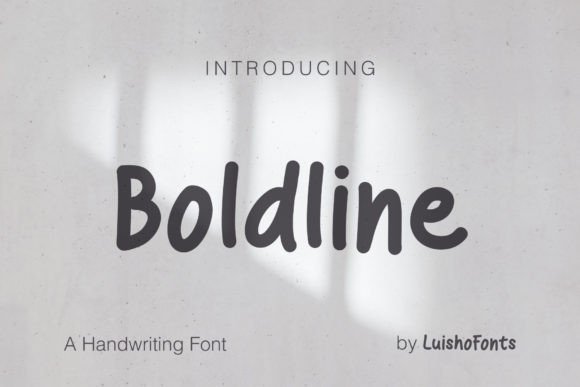
Unleash Your Creativity with Boldline Font
Have you ever sat at your desk, staring blankly at a blank canvas, searching for that perfect font to bring your creative vision to life? We’ve all been there. But what if I told you there’s a font that’s specifically designed to help you express yourself with boldness and elegance? Say hello to the Boldline Font, a modern script font that’s perfect for all your crafting needs.
This versatile font is ideal for logos, posters, banners, and so much more. With its bold strokes and clean lines, the Boldline Font is a valuable tool for designers looking to add a touch of sophistication to their designs. Whether you’re a seasoned pro or just starting out, the Boldline Font is sure to help you create something truly special.
Boldline Font Key Features
- Font Family: Boldline Font is a sans-serif font family designed for optimal readability and versatility.
- Character Set: Supports a wide range of languages, including Latin, Cyrillic, and Greek, making it suitable for global content creation.
- Unique Characteristics: Features a distinctive, modern aesthetic with bold lines and a clean, open feel, making it perfect for headlines, titles, and body text in various design contexts.
- Font Weight and Style: Available in 8 weights, from Light to Extra Bold, and 2 styles, including Regular and Italic, allowing for a high degree of customization and flexibility.
Boldline Font Review
I recently had the chance to work with Boldline Font, and I’m sharing my honest thoughts on its performance.
- Unique Design: Boldline Font offers a fresh and distinctive look that can elevate any design project.
- Legibility: The font is highly legible, making it perfect for body text, headings, and even titles.
- Comprehensive Character Set: Boldline Font comes with a wide range of characters, including international symbols and glyphs.
- Limited Weight Options: Boldline Font has a limited number of weight options, which can make it challenging to achieve the perfect balance.
- Not Suitable for Small Text: Due to its bold nature, Boldline Font may not be the best choice for small text sizes, where readability can be compromised.
Overall, Boldline Font is a solid choice for designers looking for a unique and legible font. While it may have some limitations, its strengths make it a great addition to any design project. With a little creativity and planning, Boldline Font can help you achieve stunning results.
Tips for Getting the Most Out of Boldline Font
Use the Boldline Font to add a touch of elegance and sophistication to your designs. Some tips for getting the most out of this font include:
- Pair it with a clean and simple design to let the font take center stage.
- Use it to highlight important information or create a sense of hierarchy in your design.
The Boldline Font is ideal for a variety of use cases, including:
- Alternatives to Boldline Font
Montserrat is a modern sans-serif font designed for digital use. It’s ideal for headings and titles, particularly in web and mobile applications. Montserrat has a similar geometric feel to Boldline Font, but with a more streamlined and condensed appearance.
Use Montserrat when you need a clean and modern sans-serif font for headings and titles.
Inter is a highly legible sans-serif font designed for digital use. It’s suitable for body text, headings, and titles, and is particularly effective in long-form content. Inter has a more rounded and friendly appearance compared to Boldline Font, making it a good choice for editorial and publishing applications.
Use Inter when you need a versatile and highly legible sans-serif font for body text and headings.
Avenir Next
Avenir Next is a modern sans-serif font designed for print and digital use. It’s ideal for headings, titles, and body text, particularly in high-end branding and publishing applications. Avenir Next has a more elegant and refined appearance compared to Boldline Font, making it a good choice for luxury and premium brands.